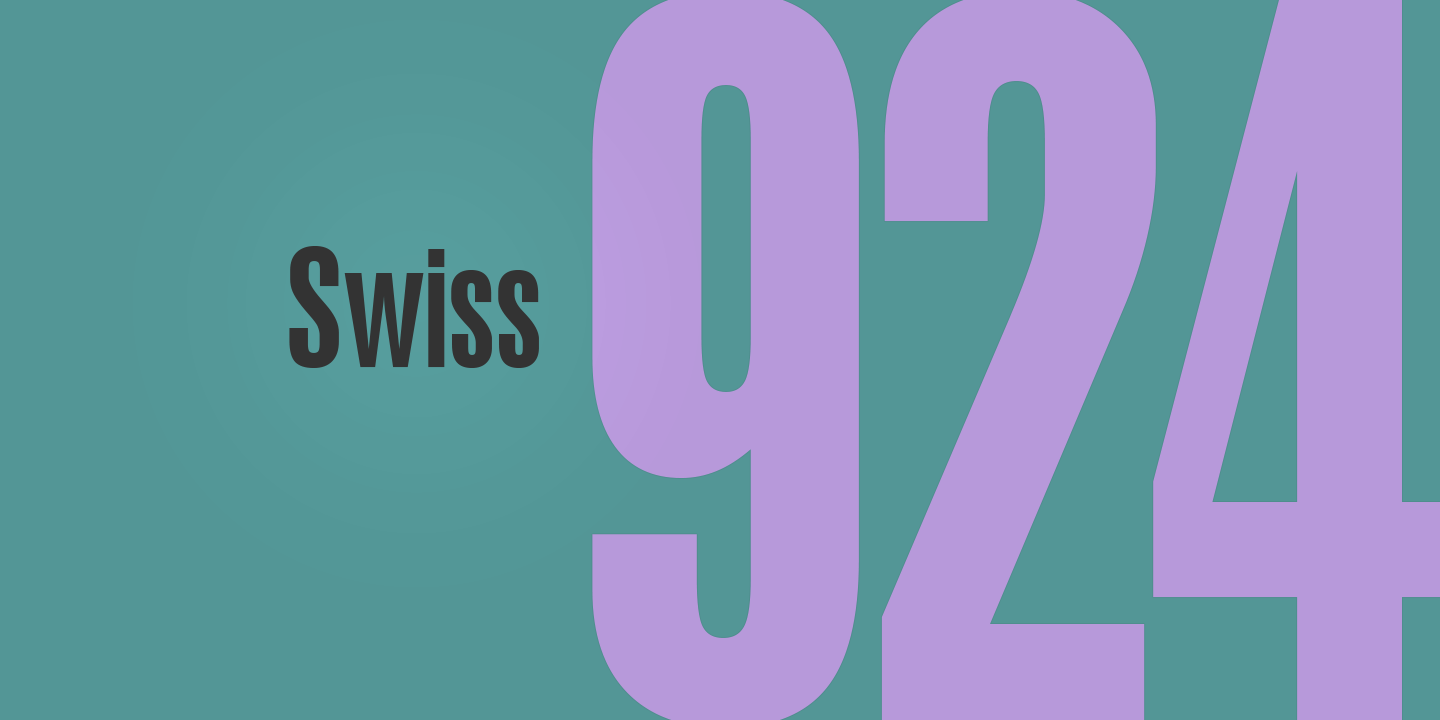
Swiss 924 Font is perfect for corporate branding, minimalist design projects, architectural firm logos, Swiss-style graphics, clean product packaging, modern signage systems, technical documentation, and professional designs that require precise Swiss design principles and typographic excellence.
This font is exciting because it embodies the legendary precision and clarity of Swiss typography through its mathematically perfect letterforms that represent the pinnacle of functional design philosophy. The meticulous character design reflects the Swiss commitment to clarity, order, and visual efficiency, making it ideal for brands seeking to convey professionalism and systematic excellence.
Swiss 924 Font belongs to the neo-grotesque sans-serif font family, featuring Swiss design styling and precision elements that enhance its authenticity for corporate and architecture-focused design applications.
Whether you're creating corporate identity systems or minimalist architectural graphics, Swiss 924 Font Free Download delivers uncompromising design integrity and Swiss precision. This typeface represents the gold standard of systematic typography, combining legendary Swiss design heritage with contemporary functionality requirements. The font's pristine presence excels in both corporate communications and technical applications, providing optimal readability while maintaining its systematic character that transforms any design with Swiss excellence and establishes visual order across all media platforms and professional communications.